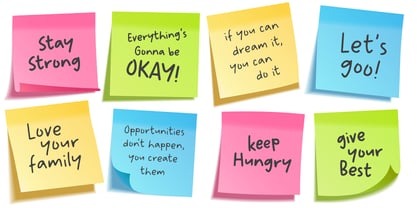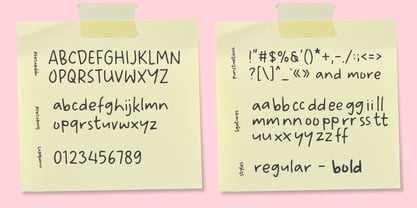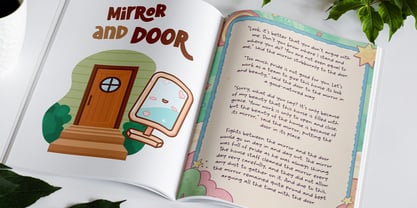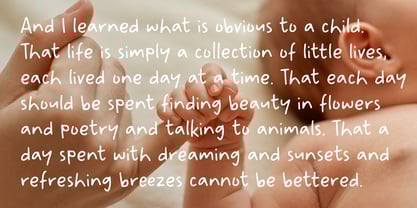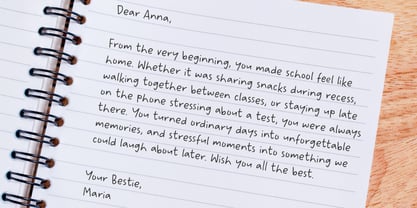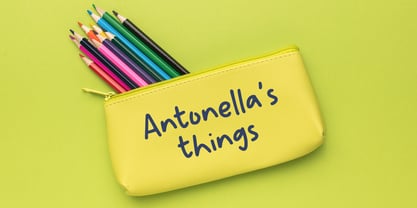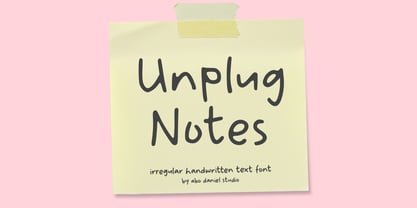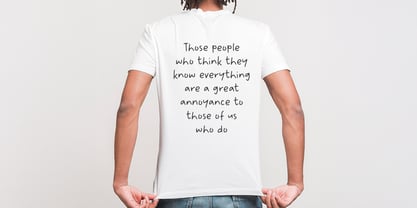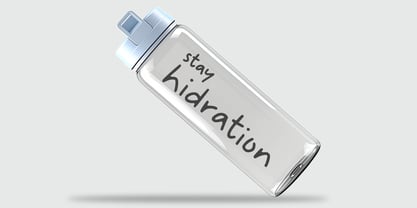
Unplug Notes
by Abo Daniel
UNPLUG NOTES is an irregular handwritten font that brings a dose of spontaneity and charm to any project.
With its uneven lines and playful curves, this typeface mimics the natural imperfections of a scribbled sticky note, full of character, emotion, and authenticity.
Whether you're designing greeting cards, digital planners, social media posts, or branding elements, Unplug Notes adds a human touch that feels personal and expressive. Each letter is carefully crafted to maintain a casual,
Lived-in aesthetic. Perfect for creators who want their words to feel warm, handwritten, and real.
Features:
Hand-drawn, irregular letterforms, uppercase and lowercase characters, multilingual support, ligatures, ideal for quotes, notes, kids' books, packaging, and more.
Unplug Notes isn't just a font—it’s a conversation in ink. Add a little scribbled soul to your next design!